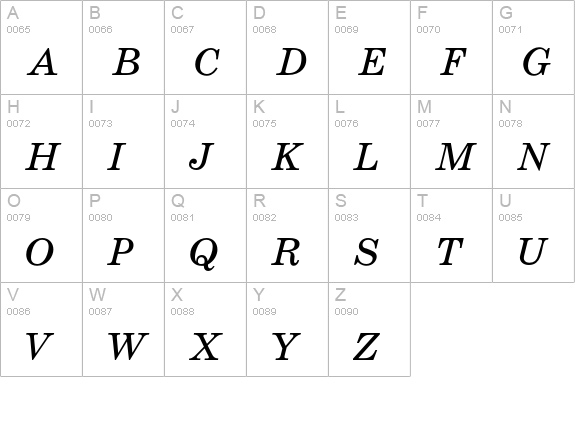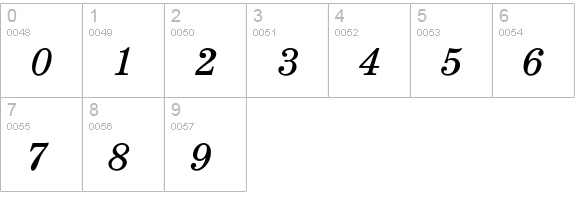
PM SchoolBook Italic Cyrillic Font Details
PM SchoolBook Italic Cyrillic is a distinctive, italic variant in the PM typeface family \xE2\x80\x94 well suited to design and typography projects.
PM SchoolBook Italic Cyrillic font is a stunning typeface that beautifully combines elegance and readability. Designed with a touch of sophistication, this font is perfect for adding a stylish and refined touch to your designs. With its sleek and slender letterforms, PM SchoolBook Italic Cyrillic font exudes a sense of grace and charm. It is ideal for various design projects, including book covers, invitations, branding, and more. The italicized style of this font adds a dynamic and expressive element to your text, making it visually captivating and engaging. It effortlessly captures attention and creates a lasting impression. One of the best aspects of PM SchoolBook Italic Cyrillic font is that it is freely available to download at FontsMarket.com. This means that you can use this font without any restrictions or limitations, making it a valuable asset for both personal and commercial projects. Whether you are a professional designer looking to create eye-catching graphics or an individual seeking to add a touch of elegance to your personal projects, PM SchoolBook Italic Cyrillic font is a perfect choice. Its versatility, style, and the fact that it is free to download make it an absolute must-have in your font collection.